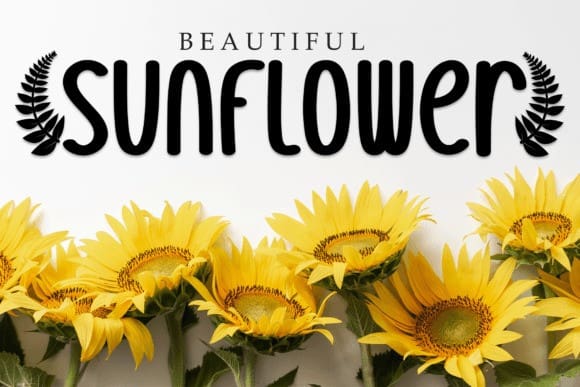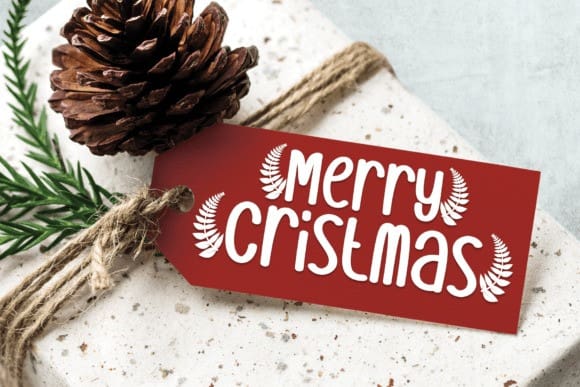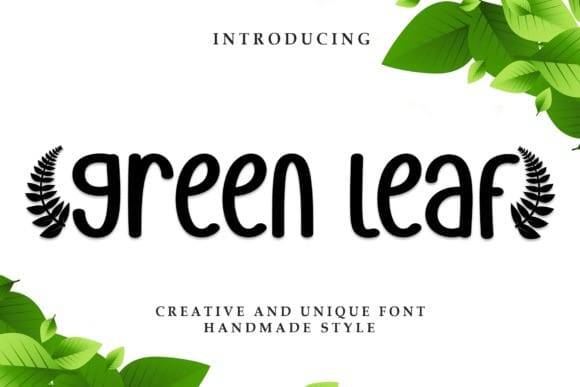
Green Leaf Font
Green Leaf Font is a sweet and friendly handwritten font. Fresh and casual, this font is ideal for writing wedding invitations, cards, or any other design that might need a lovely touch.